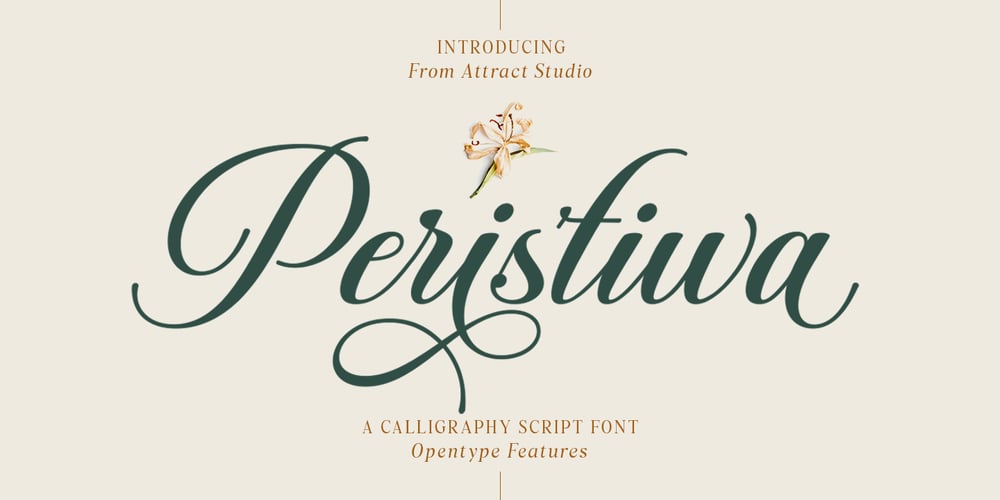
Peristiwa Script Font Family was designed by Muammar Kadafi and published by Attract Studio. Peristiwa Script contains 1 styles and family package options. Peristiwa Script is an elegant, full featured vintage inspired calligraphic script font with lots of alternative characters and OpenType features.Perfectly handwritten touch with a heavy right angle is perfect for logos, wedding invitations, modern websites, greeting cards and more!Font Pairing : Bethany ElingstonIncluding: Alternates & Ligatures OpenType support Multilingual PUA encoded.